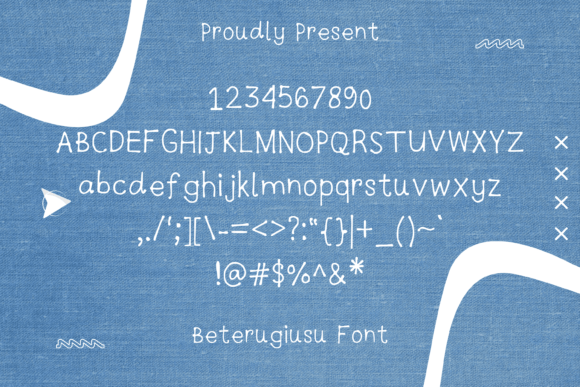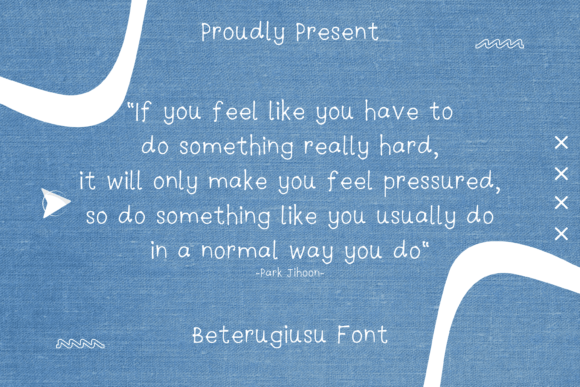
Beterugiusu Font: The Sweet and Friendly Handwritten Font for Your Creative Projects
Are you a designer or crafter looking for a font that can add a touch of warmth and personality to your creative projects? Look no further than Beterugiusu, a sweet and friendly handwritten font that’s perfect for a wide range of designs. With its natural and unique style, Beterugiusu is incredibly versatile and can be used for everything from branding and packaging to invitations and digital media.
The Characteristics of Beterugiusu Font
Beterugiusu is a handwritten font that’s characterized by its smooth, flowing lines and natural, organic feel. The font has a distinctly friendly and approachable vibe, making it perfect for designs that need to convey a sense of warmth and approachability. The letters are carefully crafted to have a unique and distinctive look, with subtle variations in size and shape that give the font a sense of movement and energy.
The Benefits of Using Beterugiusu Font
So why choose Beterugiusu for your creative projects? Here are just a few benefits of using this amazing font:
- Versatility: Beterugiusu is an incredibly versatile font that can be used for a wide range of designs. Whether you’re working on a branding project, a packaging design, or a digital media project, Beterugiusu is a great choice.
- Uniqueness: Beterugiusu has a unique and distinctive style that’s sure to set your designs apart from the crowd. The font’s natural and organic feel gives it a human touch that’s hard to find with more traditional fonts.
- Friendliness: Beterugiusu has a friendly and approachable vibe that’s perfect for designs that need to convey a sense of warmth and approachability. Whether you’re working on a project for a children’s brand or a more serious design, Beterugiusu is a great choice.
How to Use Beterugiusu Font in Your Designs
So how can you use Beterugiusu in your designs? Here are a few ideas to get you started:
- Branding: Use Beterugiusu as a logo font or as a font for your brand’s marketing materials. The font’s friendly and approachable vibe makes it perfect for brands that want to convey a sense of warmth and personality.
- Packaging: Beterugiusu is a great choice for packaging design, particularly for products that are targeted towards families or children. The font’s playful and whimsical feel makes it perfect for designs that need to stand out on store shelves.
- Digital Media: Beterugiusu can also be used in digital media, such as social media graphics, blog posts, and email marketing campaigns. The font’s clear and legible design makes it perfect for digital media, where readability is key.
Tips for Getting the Most Out of Beterugiusu Font
Here are a few tips for getting the most out of Beterugiusu:
- Experiment with different sizes: Beterugiusu looks great in a variety of sizes, from large headings to smaller body text. Experiment with different sizes to find the one that works best for your design.
- Pair it with other fonts: Beterugiusu can be paired with a variety of other fonts to create a unique and interesting design. Try pairing it with a sans-serif font for a bold and modern look.
- Use it consistently: To get the most out of Beterugiusu, use it consistently throughout your design. This will help to create a cohesive and professional look that’s sure to impress.
In conclusion, Beterugiusu is a sweet and friendly handwritten font that’s perfect for a wide range of designs. Its natural and unique style makes it incredibly versatile, and its friendly and approachable vibe makes it perfect for designs that need to convey a sense of warmth and personality. Whether you’re a designer or crafter, Beterugiusu is a great choice for any creative project.